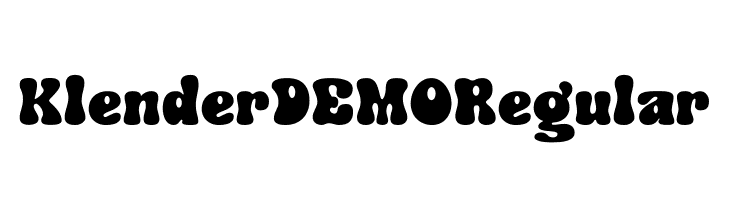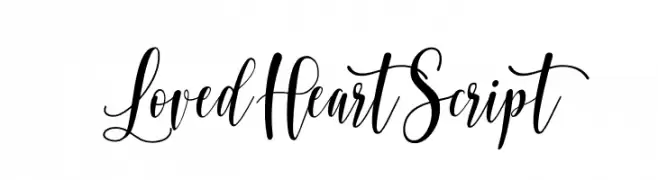
A playful, handwritten font with a casual and whimsical style.
A spooky, Halloween-themed font with spider web and spider accents.
A classic, medieval-inspired font with ornate and intricate letterforms.
A clean, modern sans-serif font with uniform stroke width and balanced spacing.
A playful and bold font with rounded letterforms, perfect for fun and approachable designs.
A playful, decorative font with bold letters inside ornament-like circles topped with bows.
Playful, rounded sans-serif with a bold, cartoonish style.
A bold, playful font with a whimsical, cartoon-like style.
A bold, dynamic font with a 3D effect and strong, angular design.
A bold, hand-drawn font with a sketch-like texture and artistic flair.
A decorative design using heart shapes to form the letter 'A'.
A bold, geometric font with a repetitive, structured design.
A bold, decorative font with dotted patterns for a festive look.
A playful, decorative font with bold letters featuring circular cutouts.
A bold, playful font with angular, high-contrast characters.
A playful, bold font with rounded edges and even spacing, ideal for friendly designs.
A whimsical, cartoon-style display font using a monkey face as its character.
A bold, playful font with a quirky, cartoonish style and rounded edges.
A bold, dripping decorative font with a rebellious and edgy style.
A bold, graffiti-inspired font with sharp, angular edges and an urban aesthetic.
A bold, cartoonish font with thick outlines and playful character design.